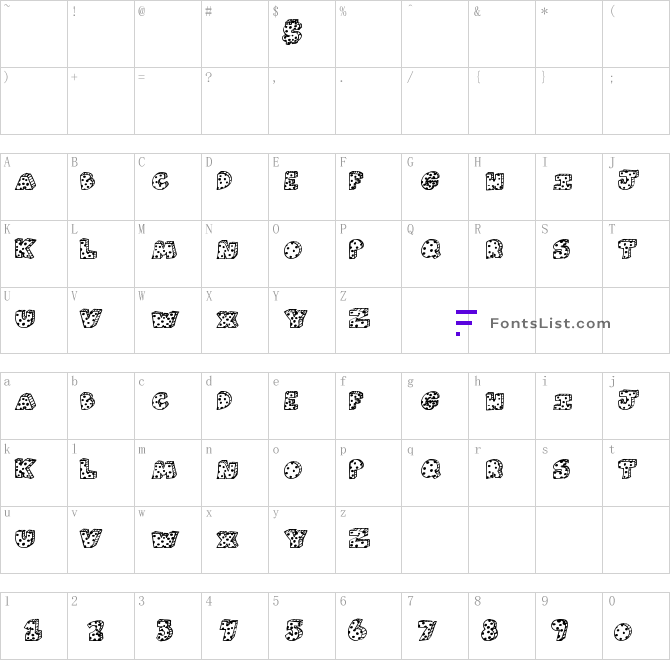
- Font Name:AgendaClash
AgendaClash.ttf is a very beautiful artistic font, AgendaClash.ttf is widely used in the design and printing of various books and pictures,AgendaClash.ttf has a strong visual impact,AgendaClash.ttf is a commonly used font in newspapers, magazines and books, and is used in posters, e-commerce Poster design, store design, logo design, font design and other fields.AgendaClash.